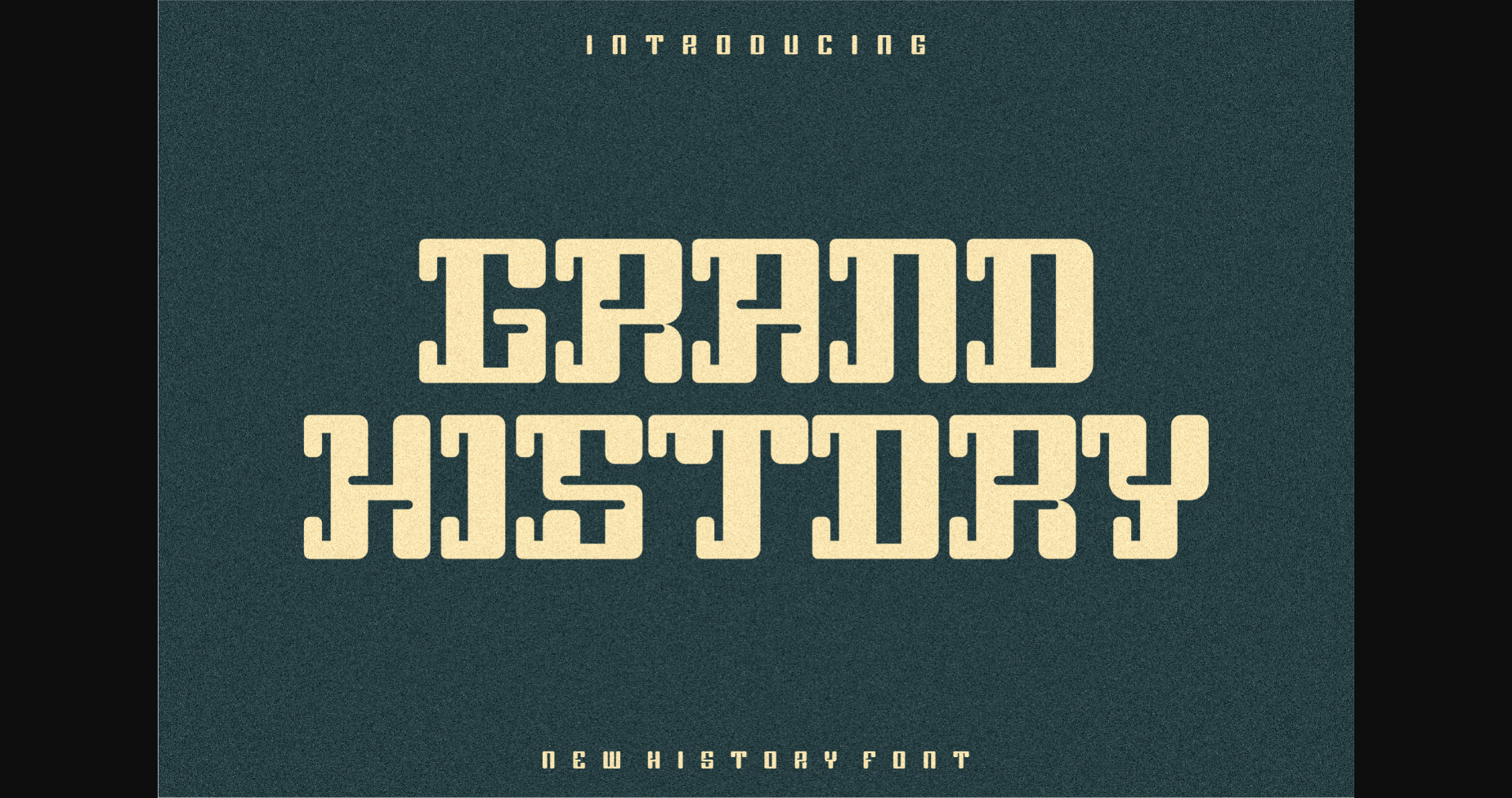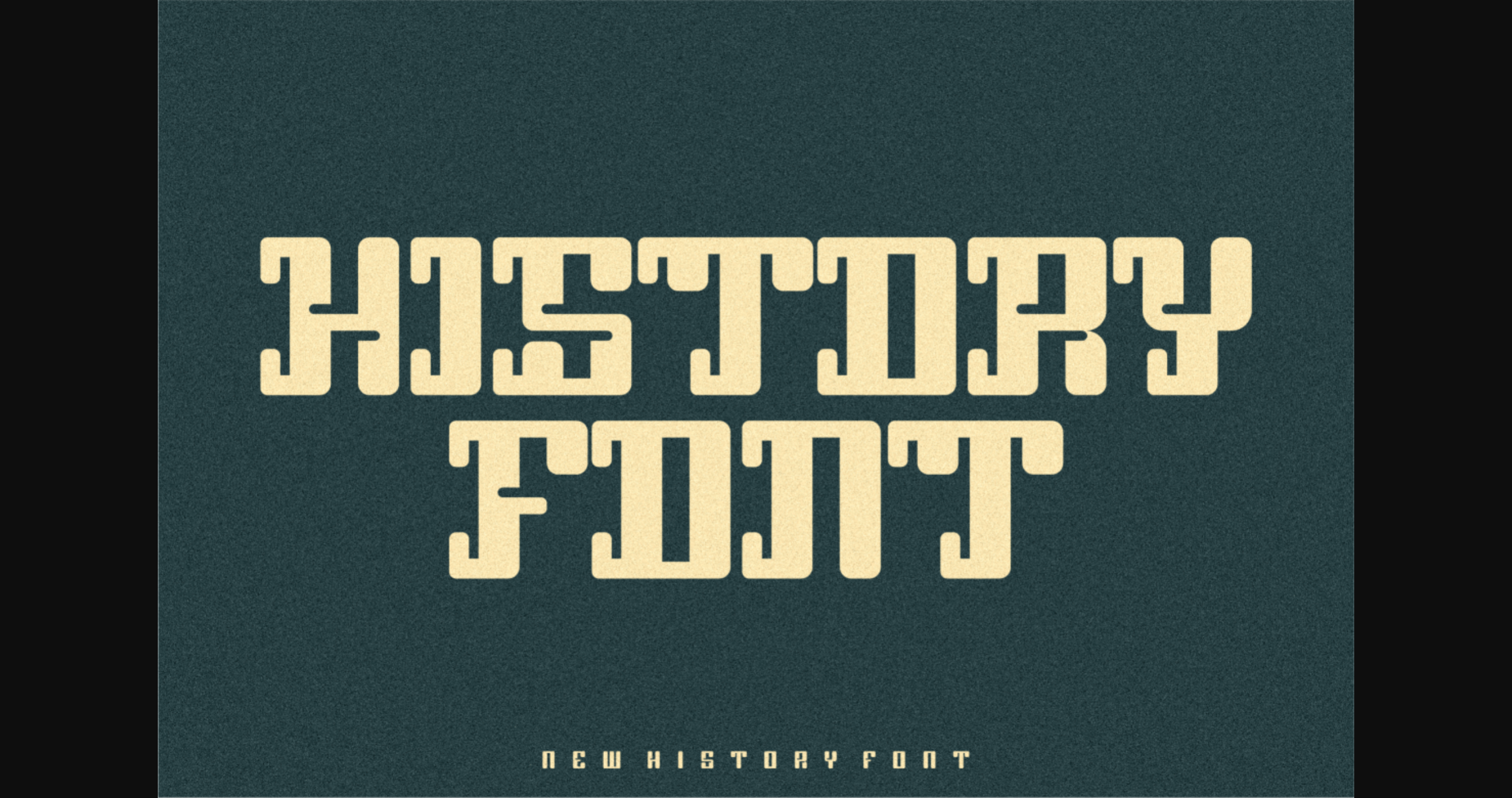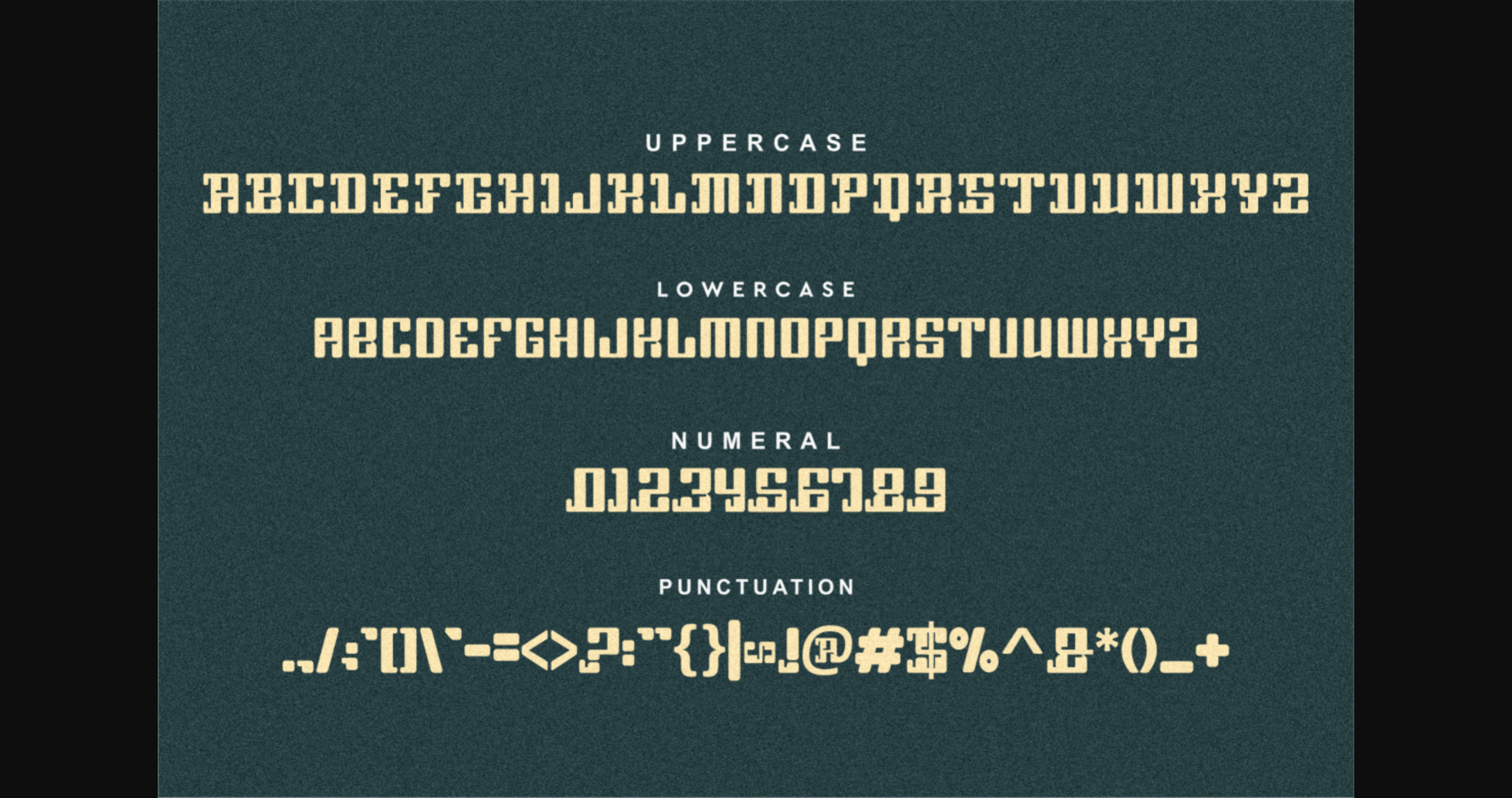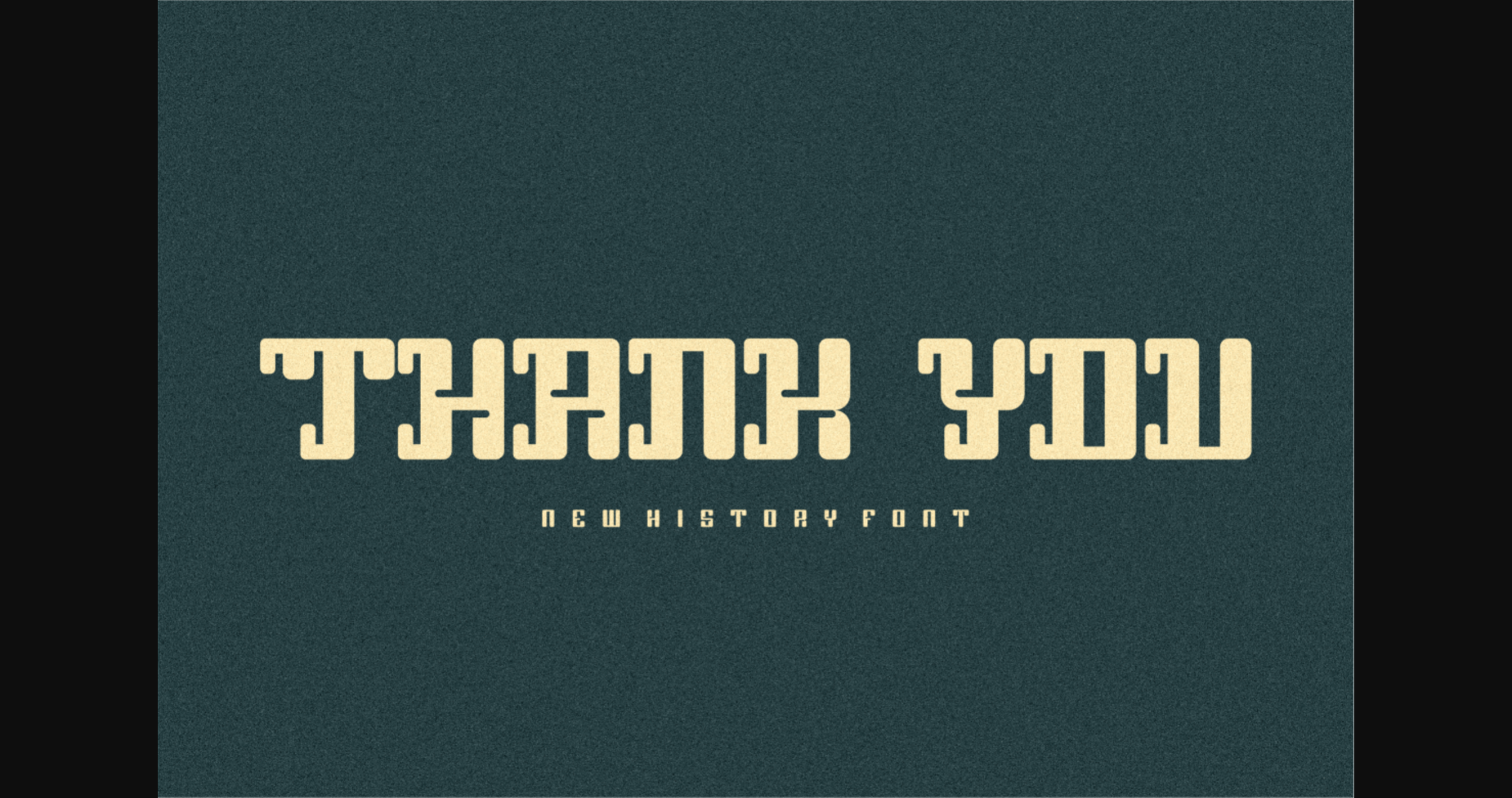
HomeSans Serif FontsGrand History Font Sans Serif Fonts Grand History Font FacebookXPinterestWhatsApp 1 of 6 ... Grand History Font Poster 2... Grand History Font Poster 3... Grand History Font Poster 4... Grand History Font Poster 5... Grand History Font Poster 6... About Grand History Font Grand History is a stylish and incredibly unique sans serif font. Masterfully designed to become a true favorite, this font has the potential to bring each of your creative ideas to the highest level! DOWNLOAD NOW People also explored Handmade Font Love Christmas Font Hysterical Font Fabela Font Underline Font Logotype Alphabet Font Beignet Golder Crazeng Font Wednesday Font 322 0 TagsGrand History Font Previous articleMoltaqa FontNext articleOxigas Font LEAVE A REPLY Cancel reply Comment: Please enter your comment! Name:* Please enter your name here Email:* You have entered an incorrect email address! Please enter your email address here Website: Save my name, email, and website in this browser for the next time I comment. Personal Use Free Lollipop Melody Personal Use Free Read more about this font Vanilla Whale Personal Use Free Read more about this font Crayones Personal Use Free Read more about this font Adlanta Personal Use Free Read more about this font BLOG 5 Fonts That Will Dominate Design Trends in 2026 5 Fonts for 2026 That Will Dominate Design Trends Typography plays a critical role in visual communication, and as we look ahead to 2026, it’s... How to Install and Use Fonts on Windows, macOS, and Web Projects Free vs Paid Fonts: Why Investing in Premium Fonts Is Worth It Modern Sans-Serif Fonts That Brands Love in 2025